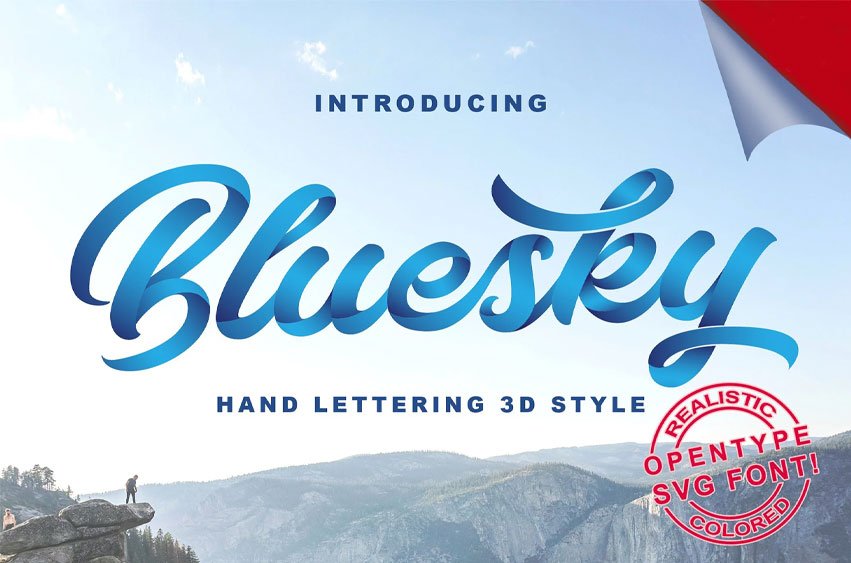
Bluesky SVG Font script with shadow detail that looks 3-D. I made this font include uppercase, lowercase, number, punctuation, alternative character and multilingual character. This font has basic blue color but you can change the color like a you want to use this font very easy to use you just typing and change color like a you want.